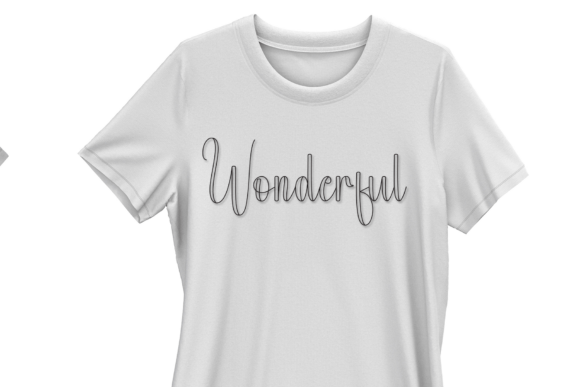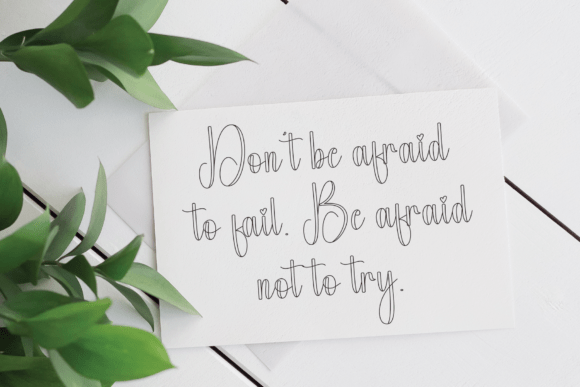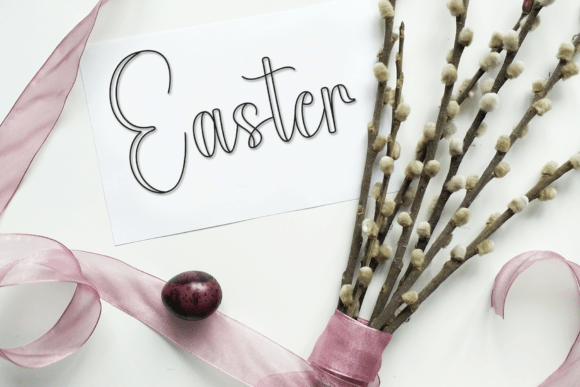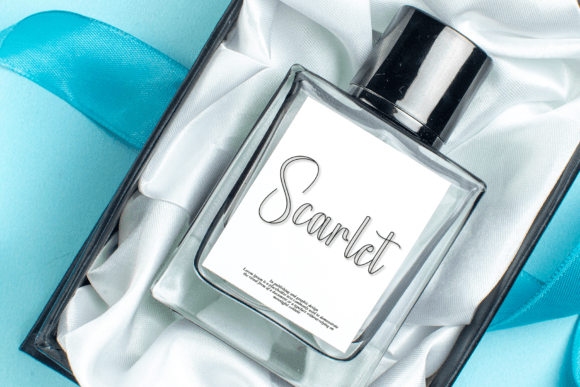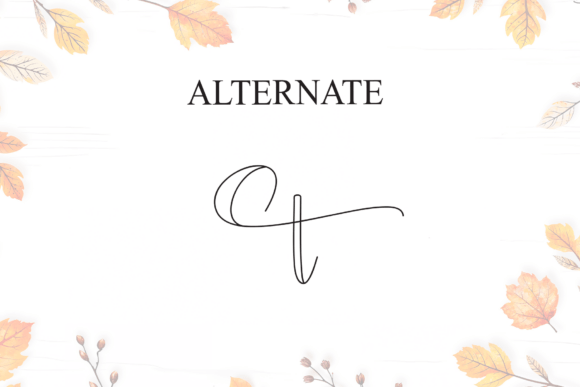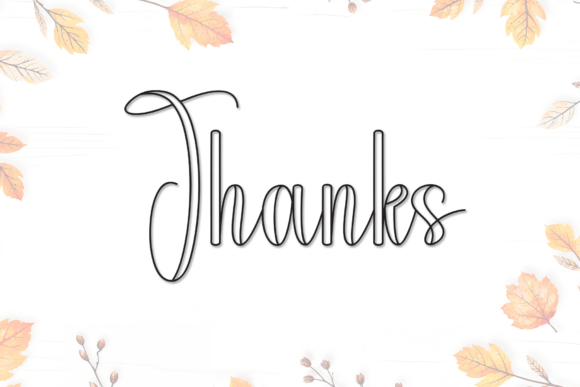
The Magic of Autumn Font: A Designer’s Delight
I’ll never forget the time I was working on a wedding invitation project, and my client asked for a font that was “whimsical, yet elegant.” I scoured the internet, tried out dozens of fonts, but nothing seemed quite right. That was until I stumbled upon Autumn Font. This charmingly delightful handwritten display font has an authentic, friendly feel that instantly won me over. In this article, I’ll share my experience with Autumn Font, its features, and how to make the most of it in your designs.
- ✨ The authentic, friendly feel that makes it perfect for crafting enchanting wedding invitations, delightful cards, and more.
- 💕 The whimsical flourish that adds a playful spin to any design.
- 🎉 The sweetness and fun that evokes a sense of warmth and charm.
While Autumn Font is a stunning addition to any design, there are a few things to keep in mind:
- ⚠️ The font is best used in large sizes, as some details may get lost in smaller text.
- 🤔 Some users may find the font a bit too ornate for certain projects, but this is largely a matter of personal taste.
The Story Behind Autumn Font
Autumn Font was created with the intention of capturing the warmth and charm of handwritten script. The designer, inspired by the beauty of nature and the magic of the autumn season, crafted a font that would evoke feelings of coziness and delight. With its whimsical flourishes and elegant lines, Autumn Font is the perfect addition to any design that requires a touch of personality.
Q: Is Autumn Font suitable for body text?
A: While Autumn Font is a beautiful addition to any design, it’s best suited for headings and titles. For body text, a clearer, more legible font may be more suitable.